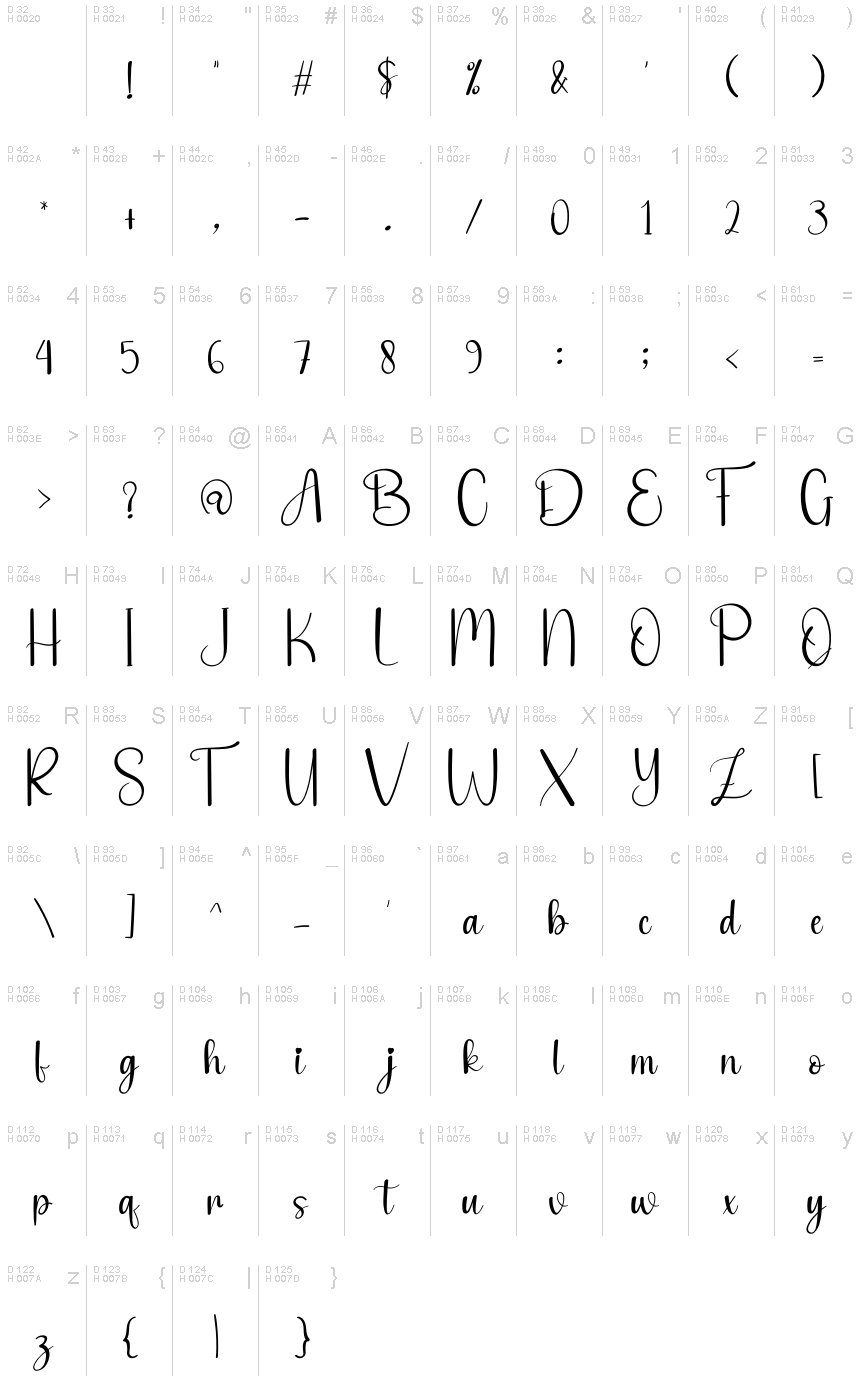
Winter Pastel
Winter Pastel is a captivating handwritten font designed by Andi Moz. Its elegant, flowing strokes and soft, pastel-like hues evoke a sense of warmth and nostalgia. The font's organic, slightly imperfect nature lends it a charming, personalized touch, making it ideal for a wide range of applications, from invitations and greeting cards to branding and editorial design. The versatility of "Winter Pastel" allows it to seamlessly transition between formal and casual contexts, adding a touch of whimsy and sophistication wherever it is used.
This font's distinctive personality and refined aesthetic make it a standout choice for designers seeking to create visually captivating and emotive pieces. Its versatility ensures that Winter Pastel can be effortlessly integrated into various design projects, from the delicate and romantic to the modern and minimalist.